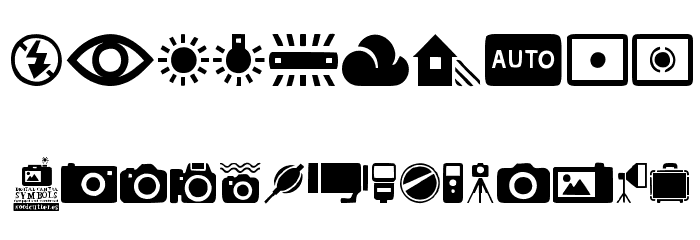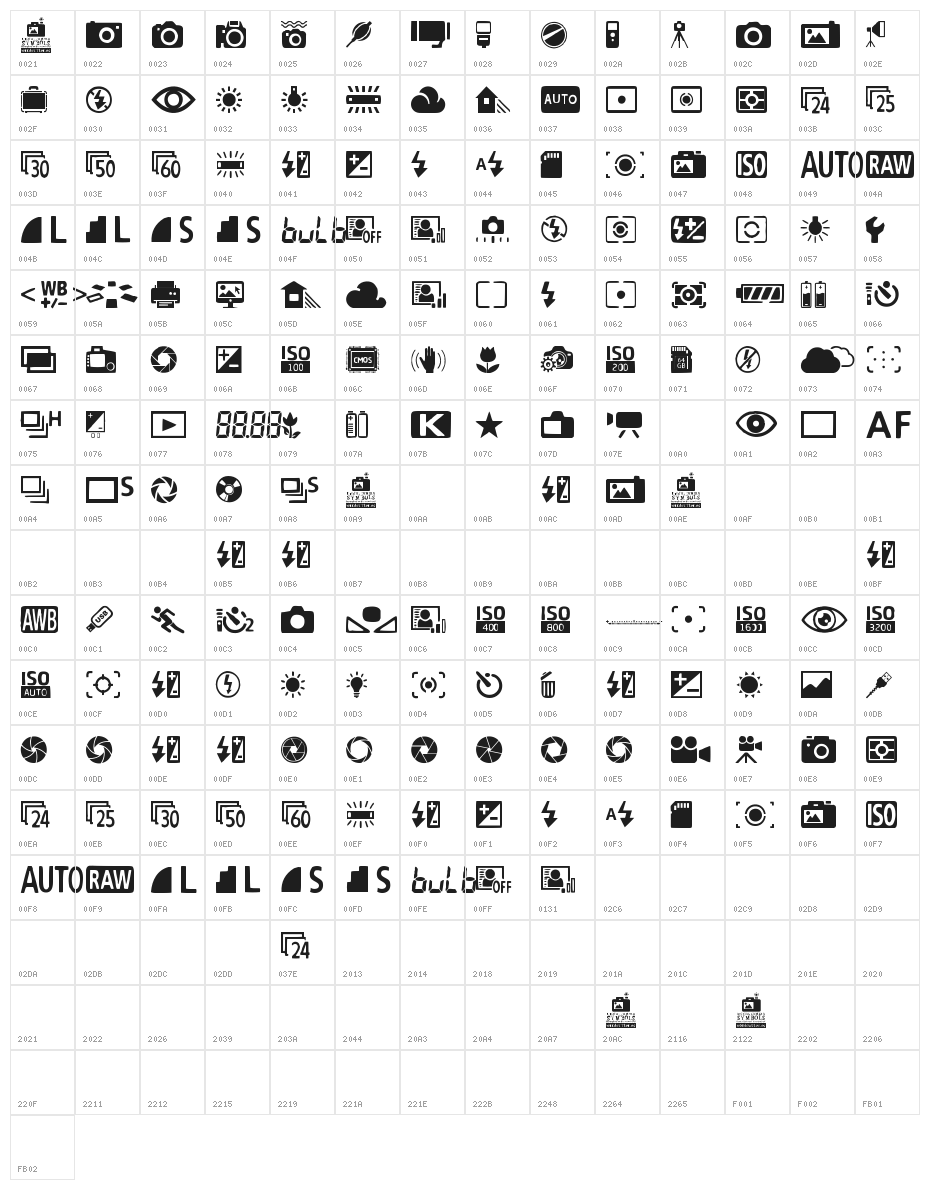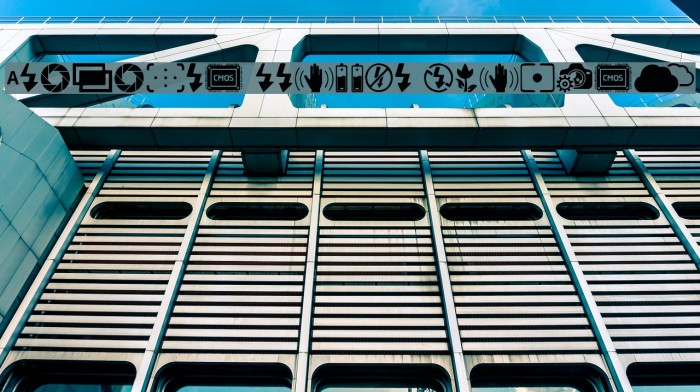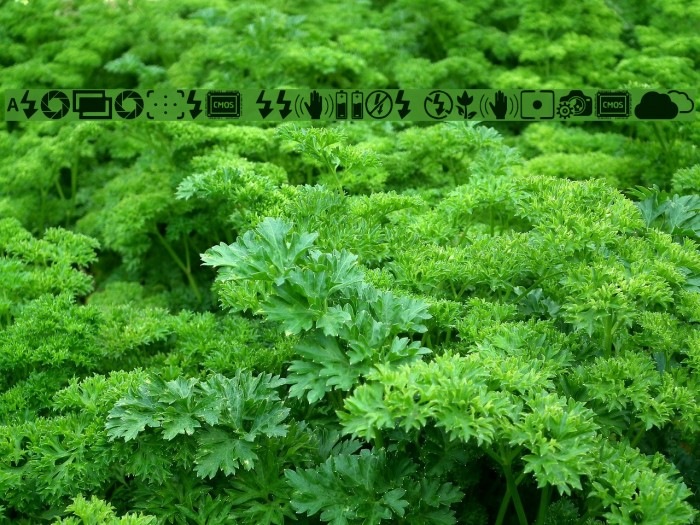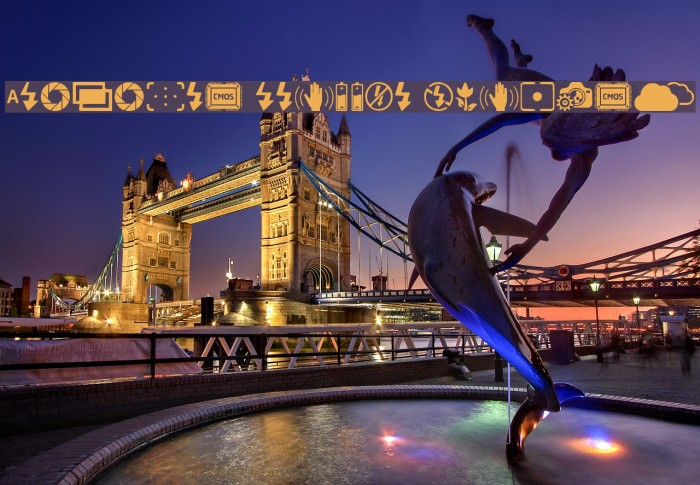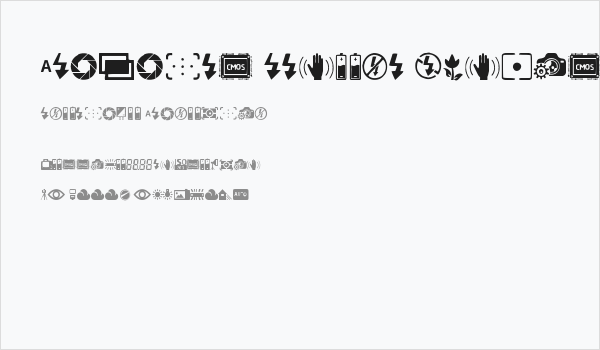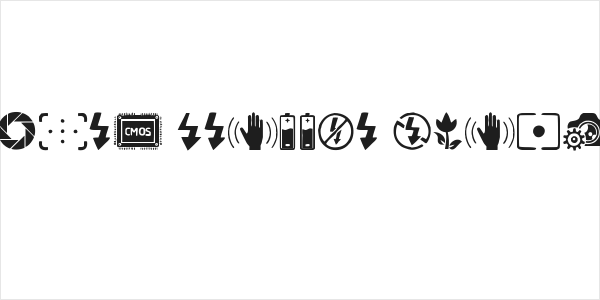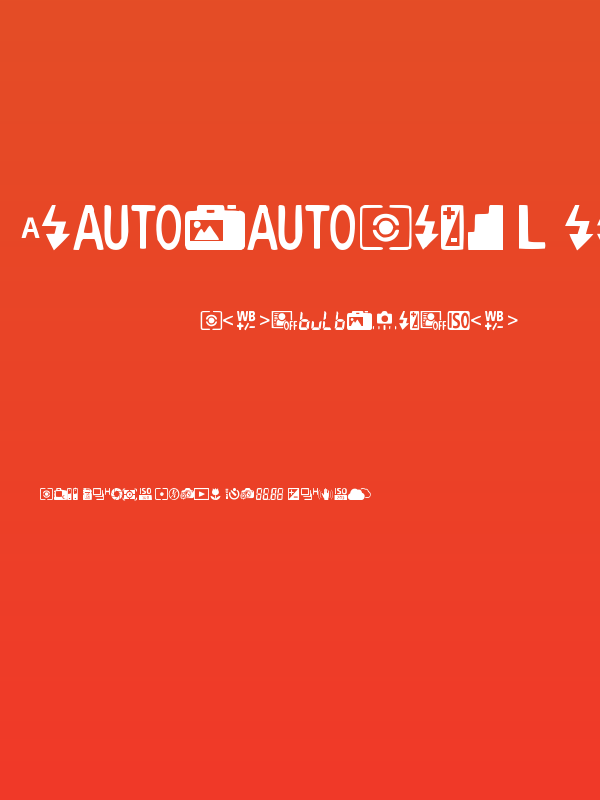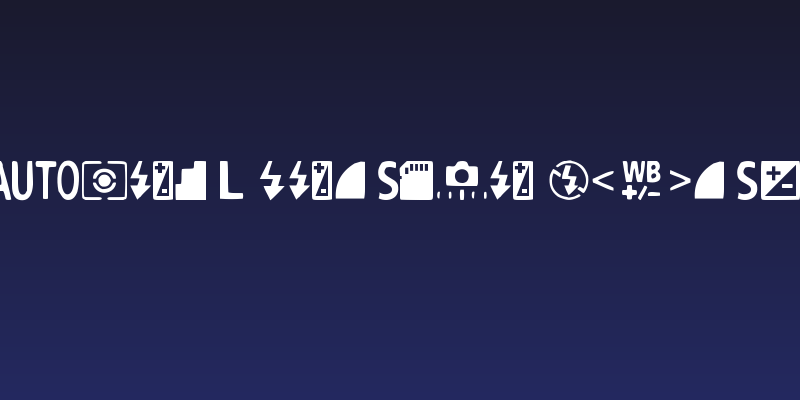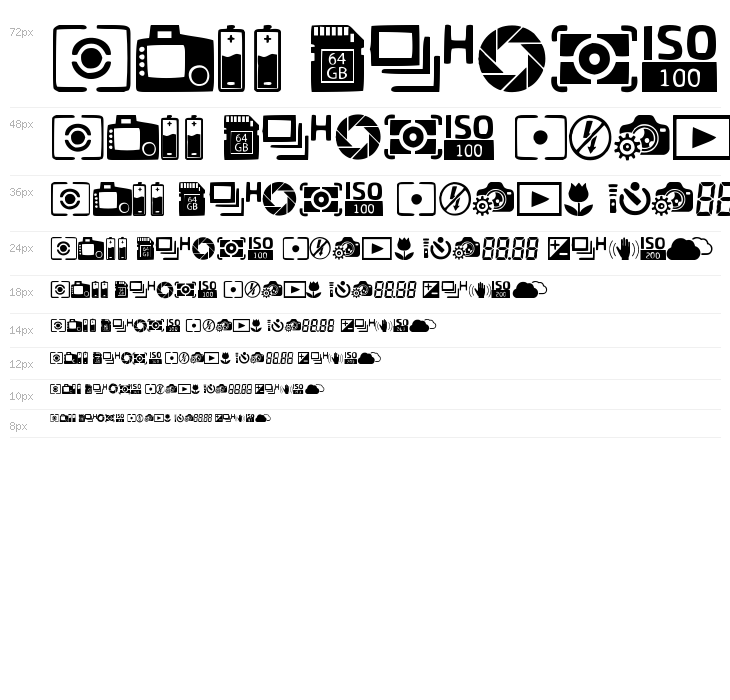
Digital Camera Symbols Font
Digital Camera Symbols Description
A pictogram-based font featuring a wide variety of digital camera interface symbols, including icons for flash, battery, ISO, autofocus, white balance, shooting modes, memory cards, and other photographic settings. The symbols are bold, high-contrast, and designed for clear legibility at small sizes.
| Overall Style | Modern, Functional, Pictographic |
| Use Case | Icons, User interfaces, Instructional materials, Signage |
| Proposed Projects | Camera manuals, user interfaces, photography apps, instructional graphics, signage for camera stores. |